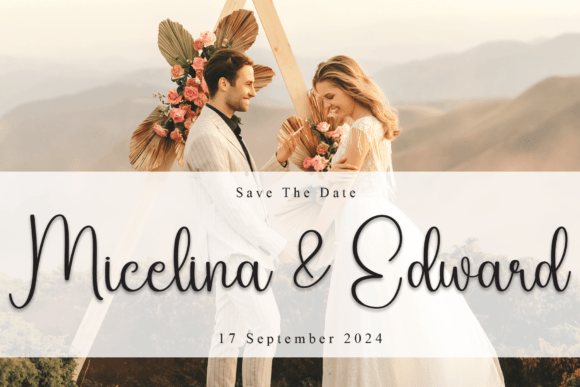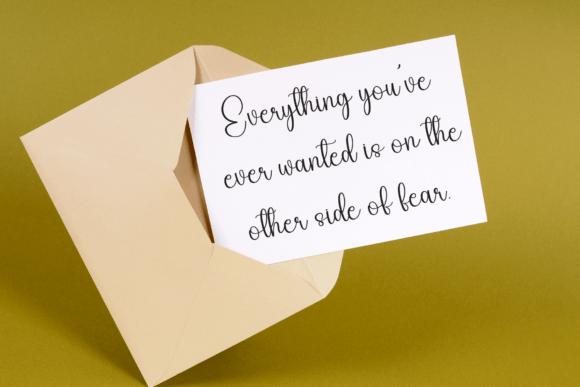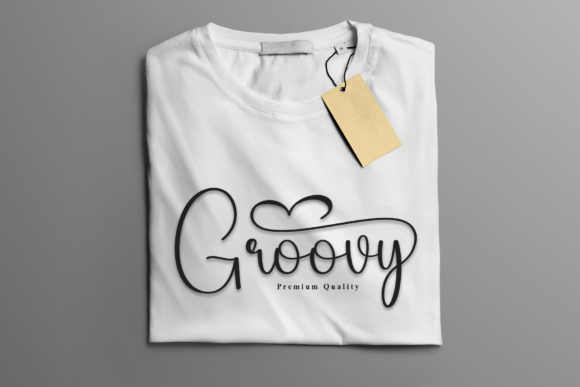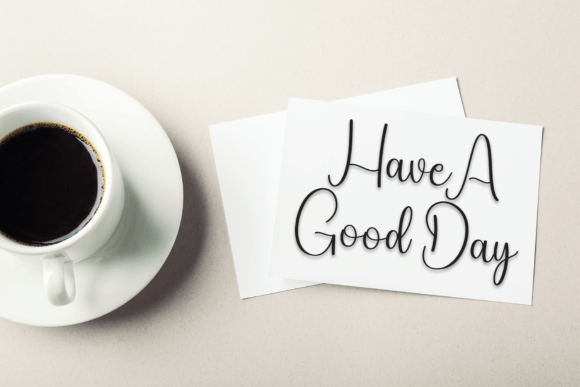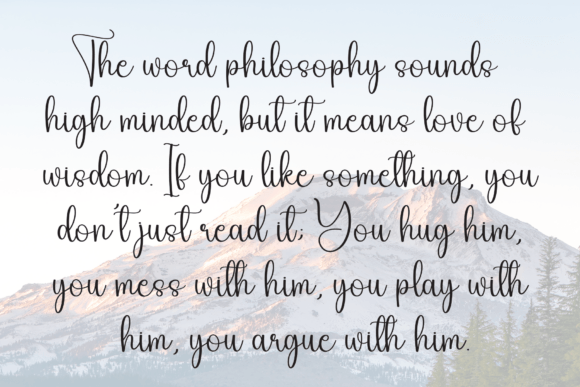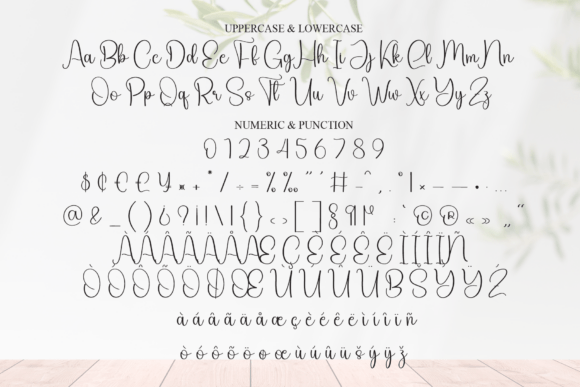
Bisney Font: The Ultimate Handwritten Display Font for Creative Projects
Are you looking for a font that can add a touch of whimsy and delight to your creative projects? Look no further than the Bisney Font! This charming and lovable handwritten display font is perfect for designers and crafters who want to capture the essence of special moments and add a sprinkle of fun to their designs.
A Font that’s Both Whimsical and Delightful
The Bisney Font is a truly unique and special font that is sure to brighten up any design venture. Its gentle allure, mingled with a playful bounce, adds an exciting flavor to every project. Whether you’re designing wedding invitations, greeting cards, or any other type of design that requires a personal touch, this font is the perfect choice.
The Bisney Font is perfect for a wide range of creative projects, including:
Any project that requires a touch of personality and whimsy will benefit from the Bisney Font. Its charming and playful design is sure to capture the attention of your audience and leave a lasting impression.
What Makes Bisney Font So Special?
So, what makes the Bisney Font so special? Here are just a few features that set it apart:
- Handwritten with love: The Bisney Font is a handwritten font, created with love and care to ensure that every letter and every word is unique and full of personality.
- Whimsical and playful: The font has a playful bounce and a whimsical feel that’s sure to add a touch of fun to any design.
- Delightful and charming: The Bisney Font is a charming and delightful font that’s sure to capture the essence of special moments and make your designs stand out.
- Easy to read: Despite its playful design, the Bisney Font is easy to read and understand, making it perfect for use in a wide range of projects.
How to Use Bisney Font in Your Designs
Using the Bisney Font in your designs is easy! Here are a few tips to get you started:
- Pair it with other fonts: The Bisney Font pairs well with other fonts, so feel free to experiment with different combinations to find the perfect look for your project.
- Use it for headings and titles: The Bisney Font is perfect for use in headings and titles, where its playful design can really shine.
- Add some color: The Bisney Font looks great in a wide range of colors, so don’t be afraid to experiment and find the perfect hue for your project.